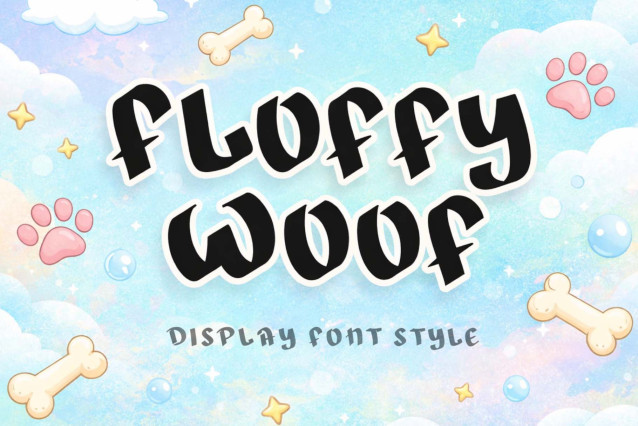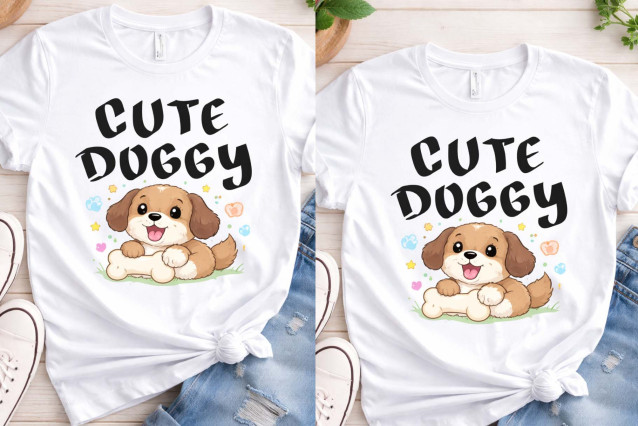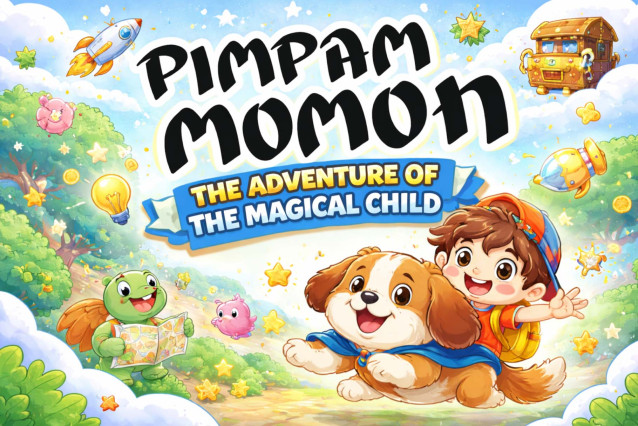
Floffy Woof Font
Bring some “paws-itive” energy to your designs with Floffy Woof, a playful display font designed to capture the cozy, cuddly spirit of our furry friends. This ultra-bold, “squishy” typeface features heavy, rounded letterforms and organic, hand-drawn edges that radiate a sense of warmth and friendliness. With its high-impact silhouette and “pup-chic” aesthetic, Floffy Woof is the premier choice for independent pet boutique branding, artisanal dog treat packaging, children’s animal book titles, and high-energy “pet-vlogger” social media headers.